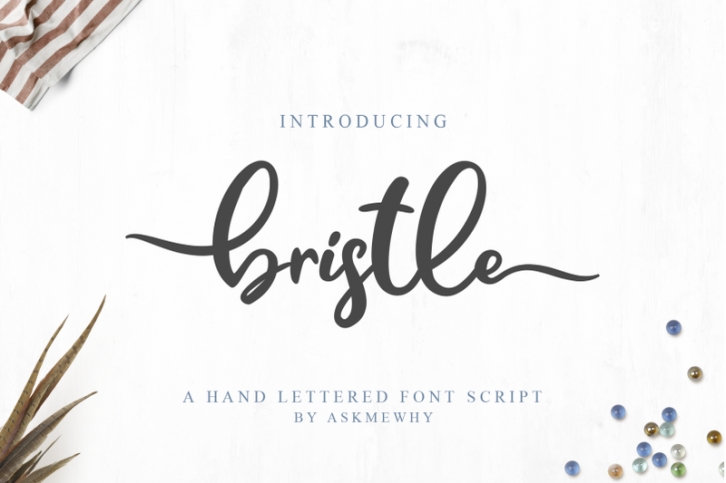
Bristle Font Script Download
Bristle - A beautiful hand lettered font script by Askmewhy.
Font that really natural , beautiful & modern handlettering font. I'ts Perfect for logo, invitation, stationery, wedding designs, social media posts, advertisements, product packaging, product designs, label, photography, watermark, special events or anything. This font include : Bristle
- Very great for branding, logotype, handletteing, invitations, or fashion branding.